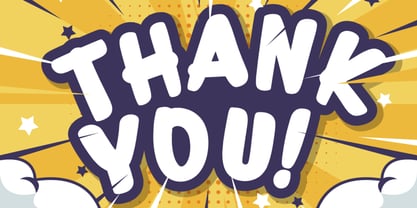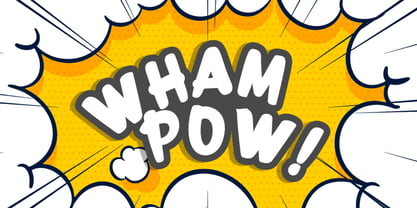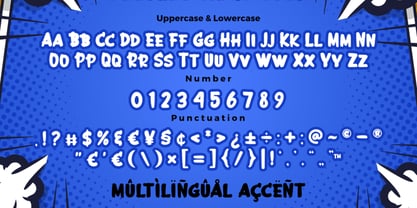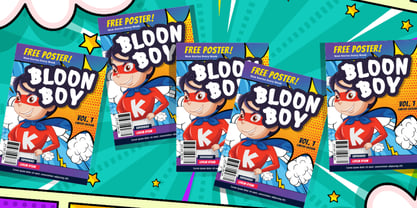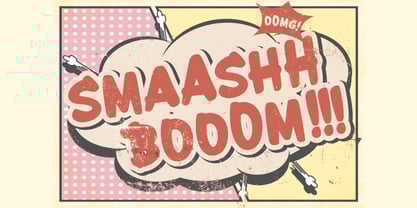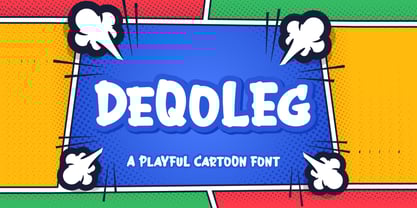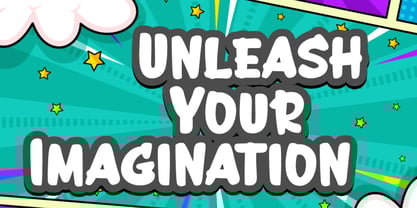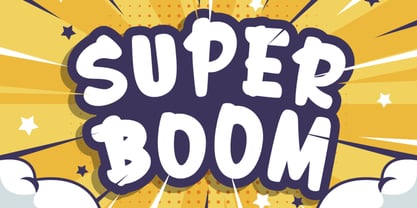
DeQoLEg
by Bayuktx
The DeQoLEg Font Family was designed by Bayu Aji Fais Mursid and published by Bayuktx. DeQoLEg contains 1 styles.
DEQOLEG a Playful Cartoon Font, This font is made with a high premium quality level which you can use as flyers, quotes, posters, banners, packaging, merchandise, logotypes and much more.
FEATURES :
* Uppercase
* Lowercase
* Number
* Punctuation
* Multilingual